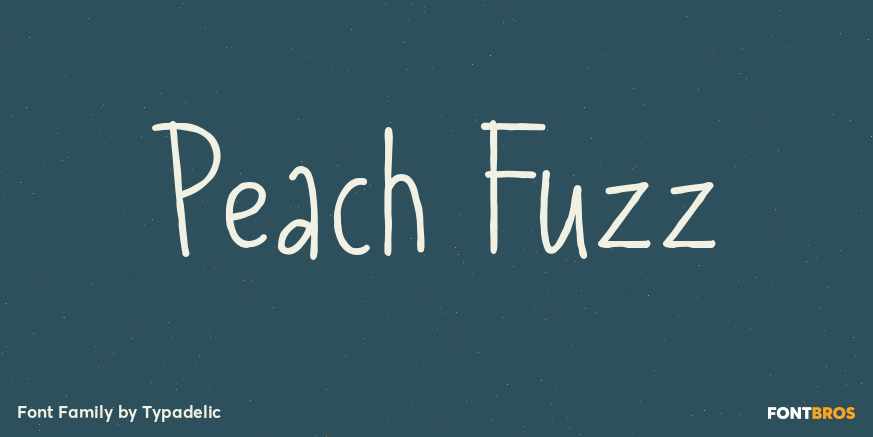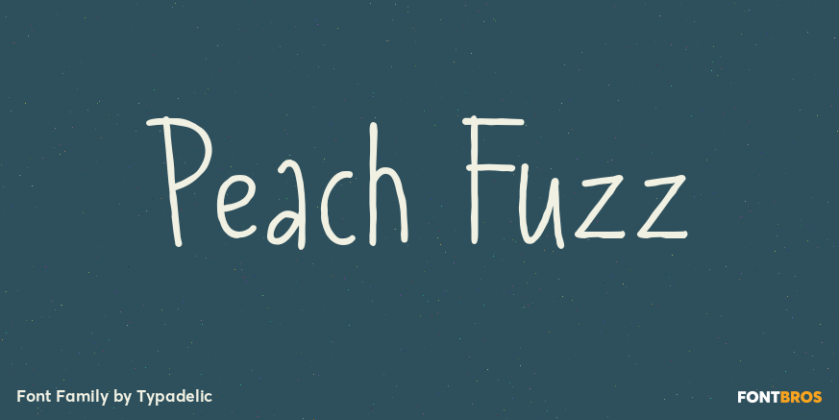
About Peach Fuzz
Fun and quirky yet highly legible, Peach Fuzz invokes a sense of playfulness to your documents or projects. The varying slant of the letters and its rough edges give it an energetic quality. Great for scrapbook pages or for those times when you want to…